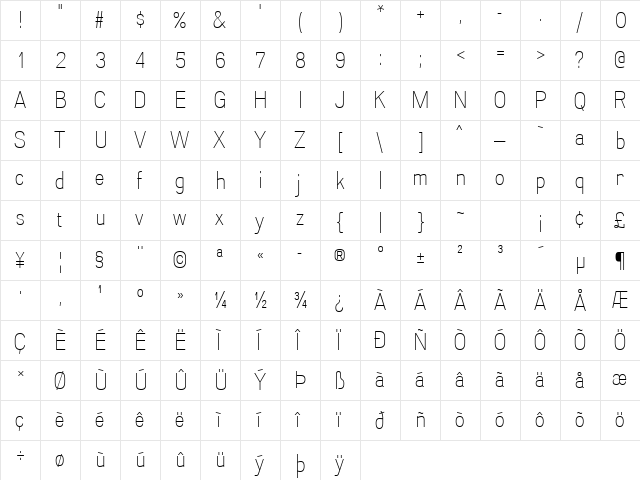
Akazan Light
Design Context for Akazan Typeface
Akazan offers clean, dependable letterforms without strong stylistic allegiance, making it a practical choice for designers who need flexibility. Its slender proportions lend an understated elegance to any composition.